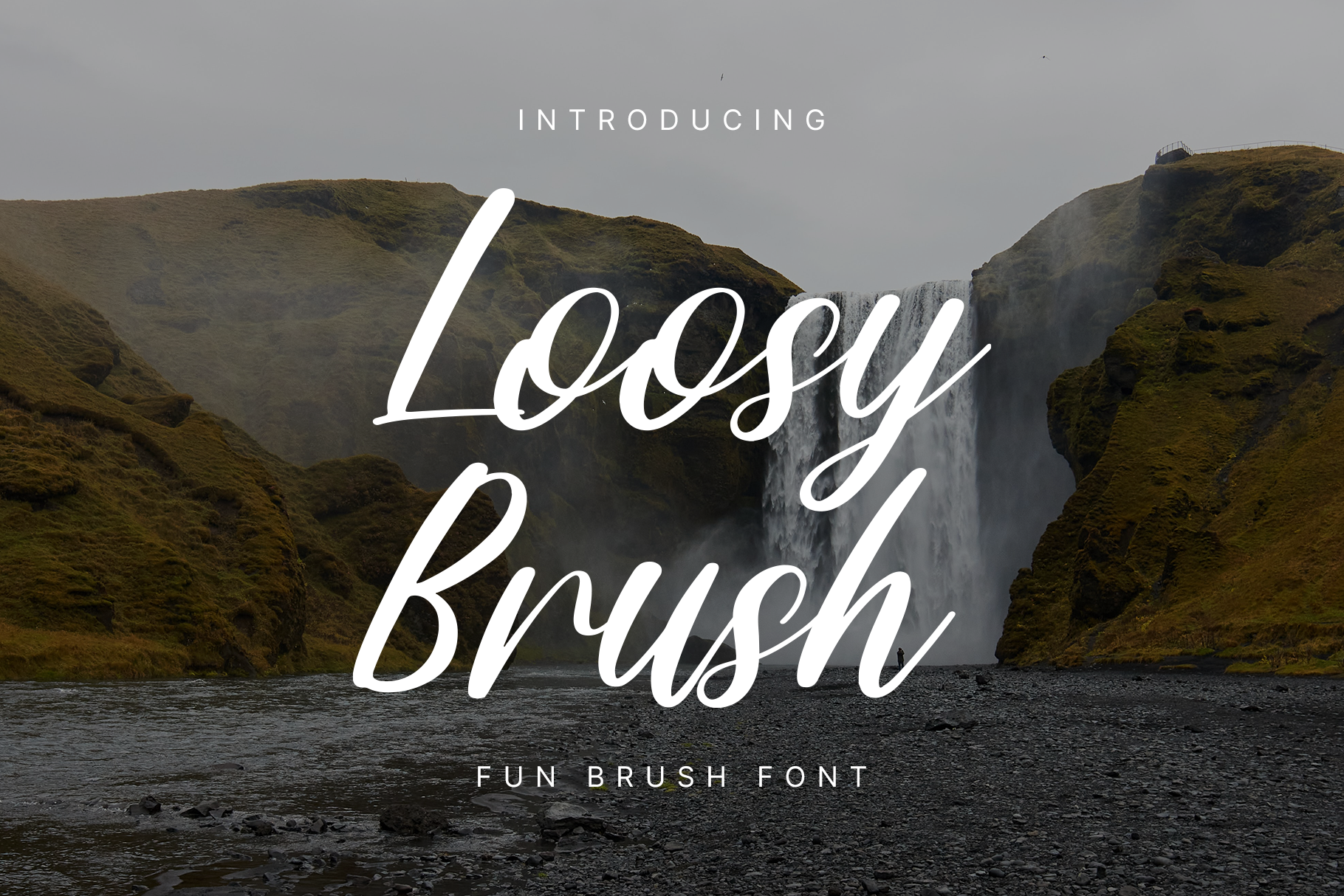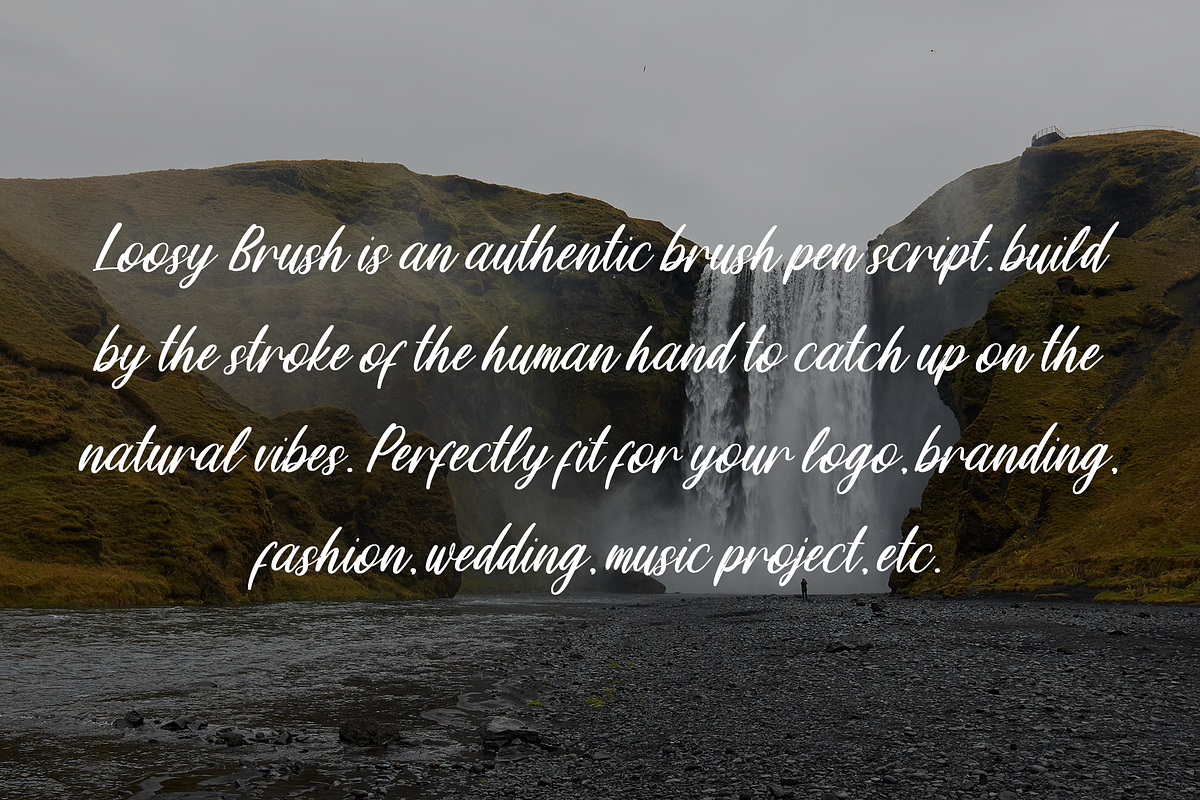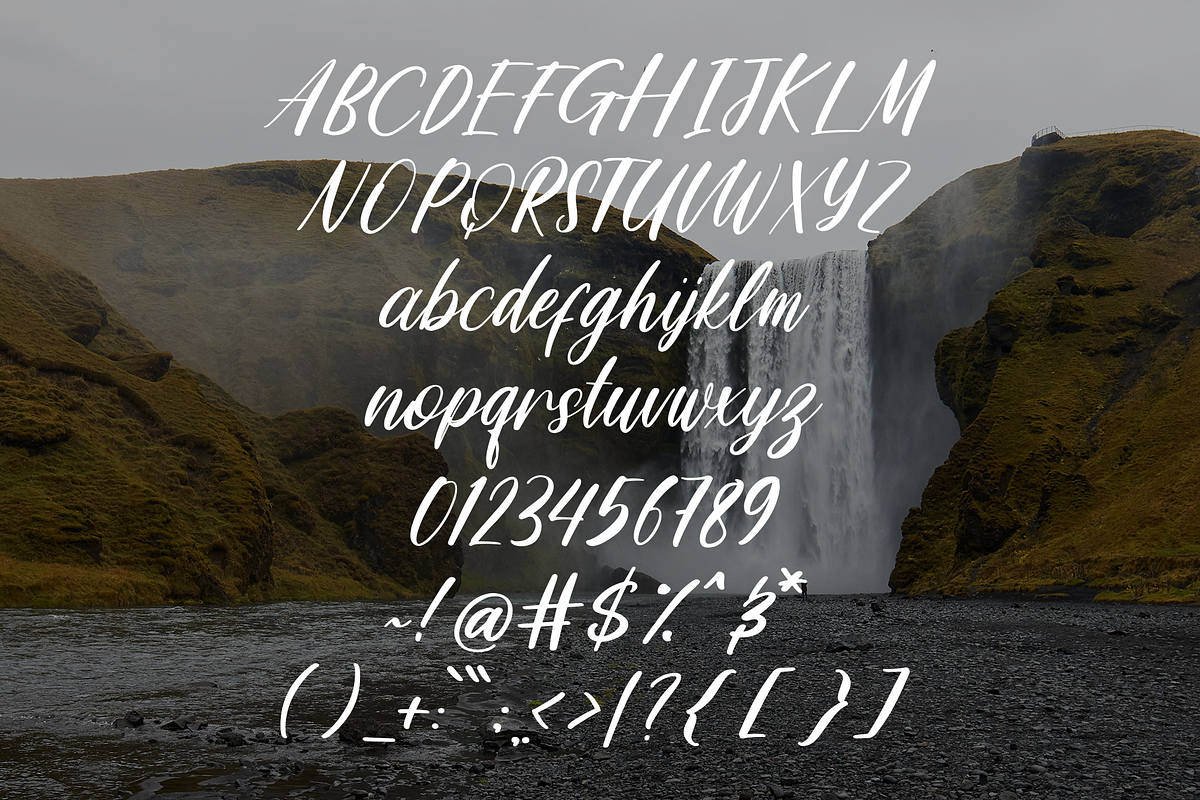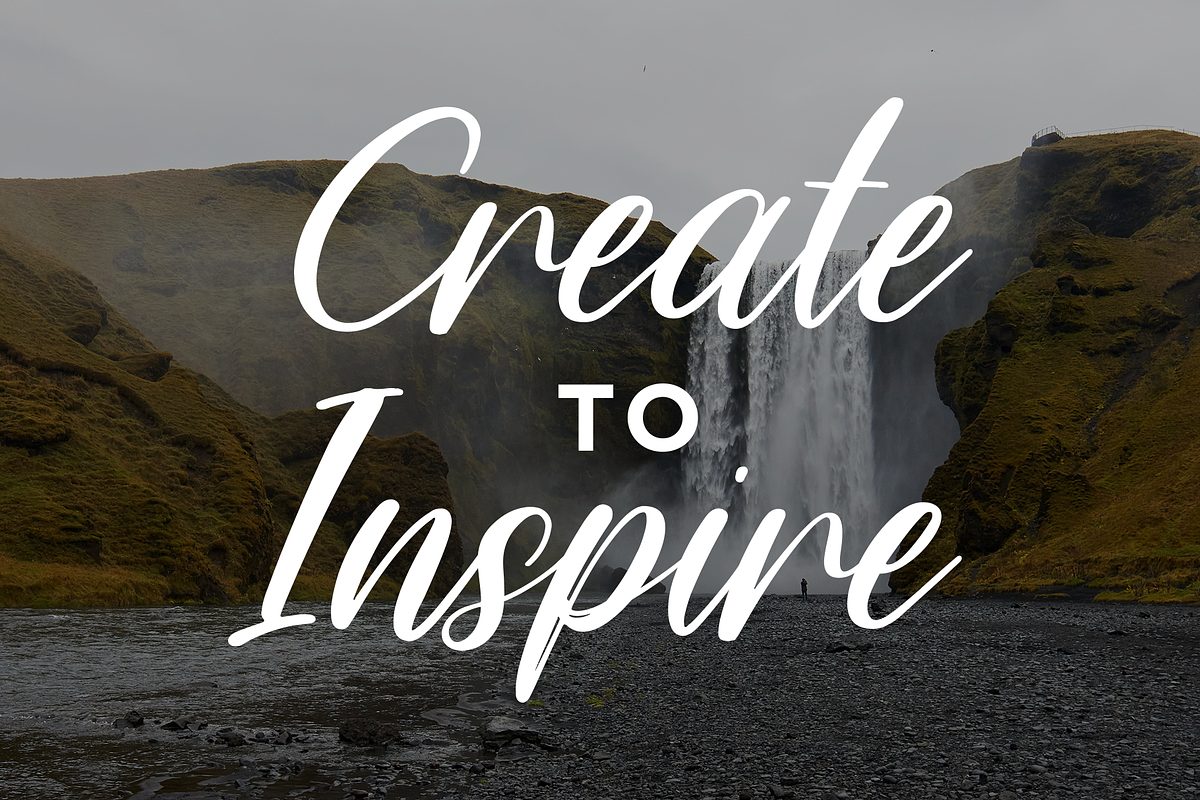
Loosy Brush – Fun Script Fonts
Loosy Brush is an authentic brush pen script. build by the stroke of the human hand to catch up on the natural vibes. Perfectly fit for your logo, branding, fashion, wedding, music project, etc.